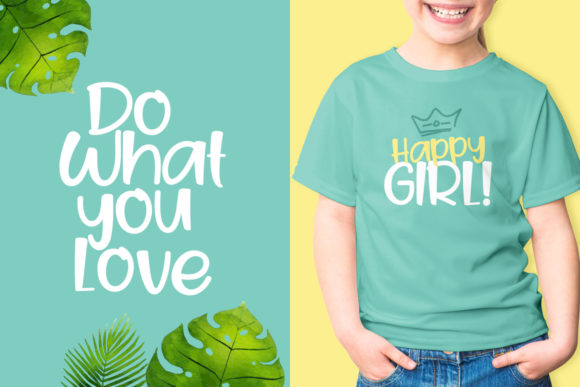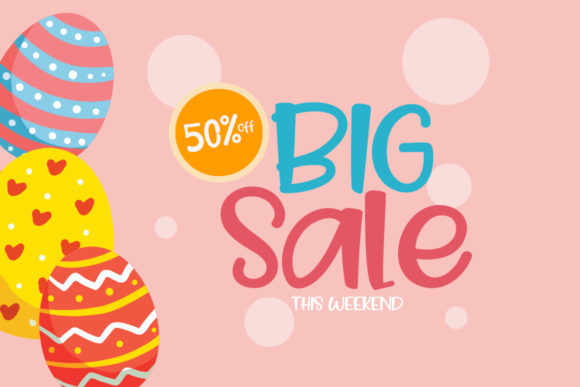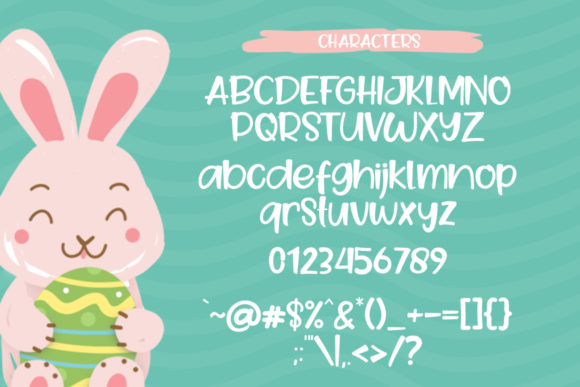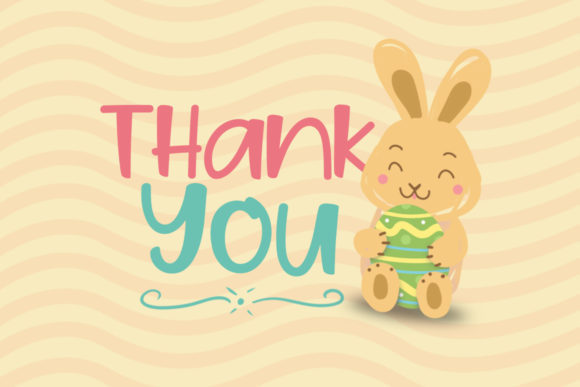
Goo Easter Font: Add a Cheerful Touch to Your Designs
Are you looking for a font that can add a playful and cheerful touch to your designs? Look no further than the Goo Easter Font! This display typeface is perfect for creating fun and engaging designs that are sure to capture the attention of your audience. In this article, we’ll take a closer look at the Goo Easter Font, its features, and how you can use it to elevate your designs.
What is Goo Easter Font?
The Goo Easter Font is a display typeface that is designed to bring a cheerful theme to your designs. It’s a fun and playful font that’s perfect for creating designs that need a lighthearted and humorous touch. The font features a unique and quirky design that’s sure to stand out from the crowd.
Key Features of Goo Easter Font
So, what makes the Goo Easter Font so special? Here are some of its key features:
- Cheerful theme: The Goo Easter Font is designed to bring a cheerful theme to your designs. Its playful and fun design is perfect for creating designs that need a lighthearted touch.
- Display typeface: The Goo Easter Font is a display typeface, which means it’s perfect for use in headlines, titles, and other display text.
- Versatile: The Goo Easter Font is versatile and can be used in a variety of designs, including logos, branding, greeting cards, posters, and more.
How to Use Goo Easter Font
So, how can you use the Goo Easter Font in your designs? Here are some ideas to get you started:
- Logos: The Goo Easter Font is perfect for creating fun and playful logos that are sure to capture the attention of your audience.
- Branding: Use the Goo Easter Font to create branding materials that are cheerful and engaging.
- Greeting cards: The Goo Easter Font is perfect for creating fun and playful greeting cards that are sure to bring a smile to the recipient’s face.
- Posters: Use the Goo Easter Font to create eye-catching posters that are sure to grab the attention of your audience.
Why Choose Goo Easter Font?
So, why should you choose the Goo Easter Font for your designs? Here are some reasons:
- Unique design: The Goo Easter Font features a unique and quirky design that’s sure to stand out from the crowd.
- Easy to read: Despite its playful design, the Goo Easter Font is easy to read and can be used in a variety of designs.
- Versatile: The Goo Easter Font is versatile and can be used in a variety of designs, including logos, branding, greeting cards, posters, and more.
Tips for Using Goo Easter Font
Here are some tips for using the Goo Easter Font in your designs:
- Use it sparingly: The Goo Easter Font is a display typeface, so it’s best to use it sparingly in your designs.
- Pair it with other fonts: The Goo Easter Font can be paired with other fonts to create a unique and interesting design.
- Experiment with colors: The Goo Easter Font can be used with a variety of colors to create a fun and playful design.
The Goo Easter Font is a fun and playful display typeface that’s perfect for adding a cheerful touch to your designs. Its unique and quirky design makes it stand out from the crowd, and its versatility makes it perfect for use in a variety of designs. Whether you’re a designer or a crafter, the Goo Easter Font is a great choice for your next project.